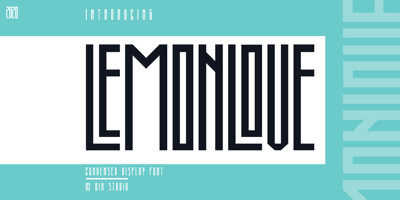
Lemonlove
Lemonlove font
Lemonlove Font Family was designed by Donis Miftahudin and published by Din Studio. Lemonlove contains 1 styles and family package options. Lemonlove is a condensed display font. This font come with modern themes. It matches applies in some designs such as the logotype, brand, packaging, quotes, t-shirt, cover book and more custom design. Features: Multilingual Support PUA Encoded Numerals and Punctuation Thank you for downloading premium fonts from Din Studio